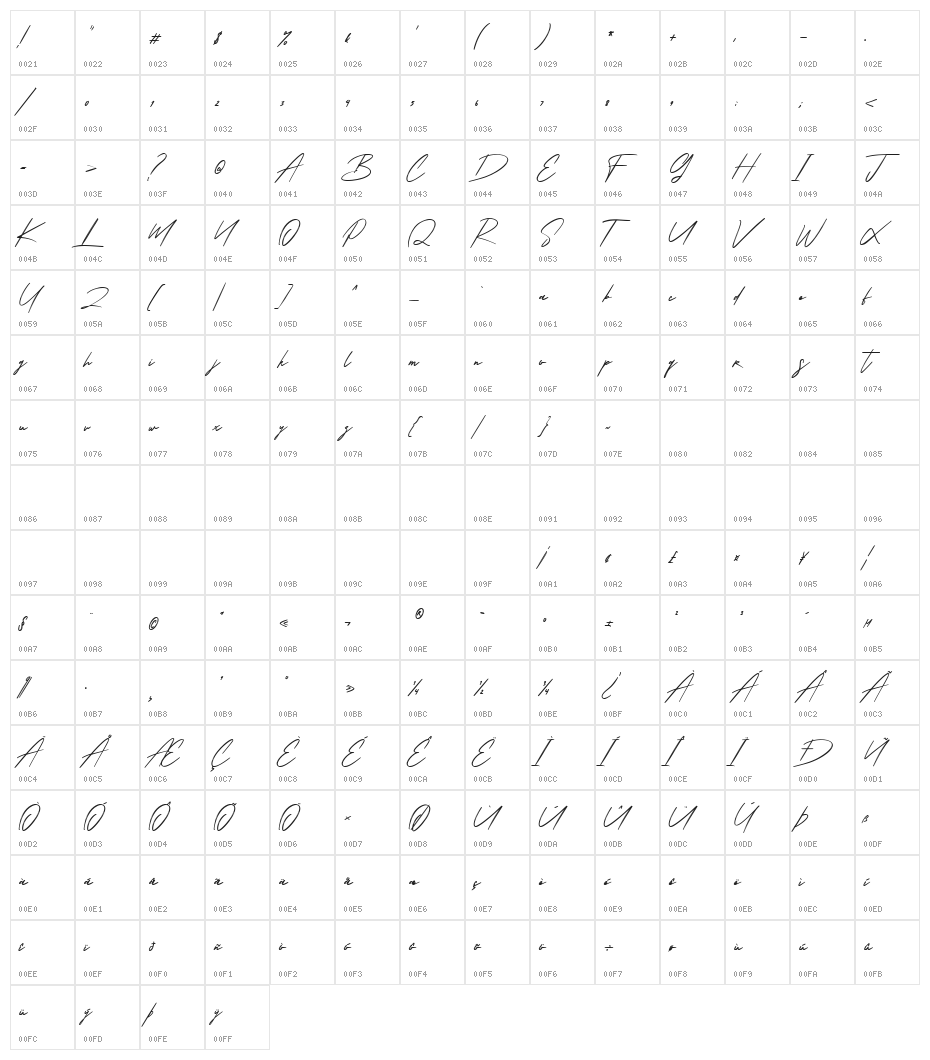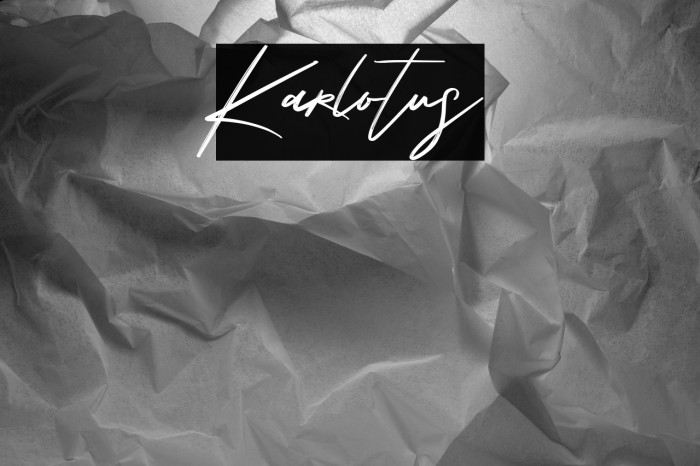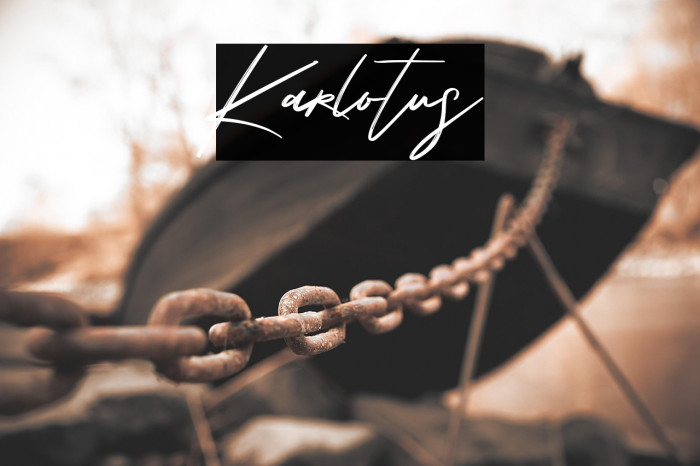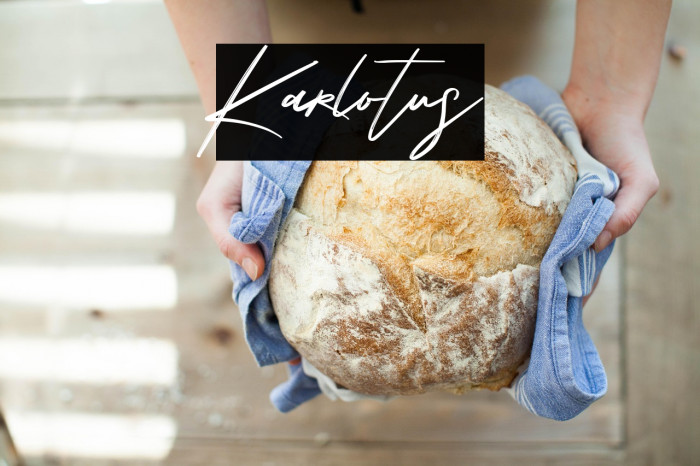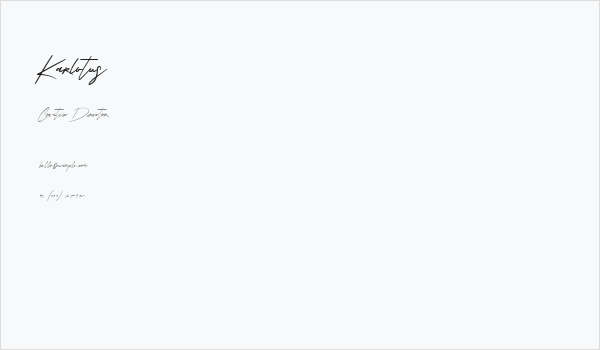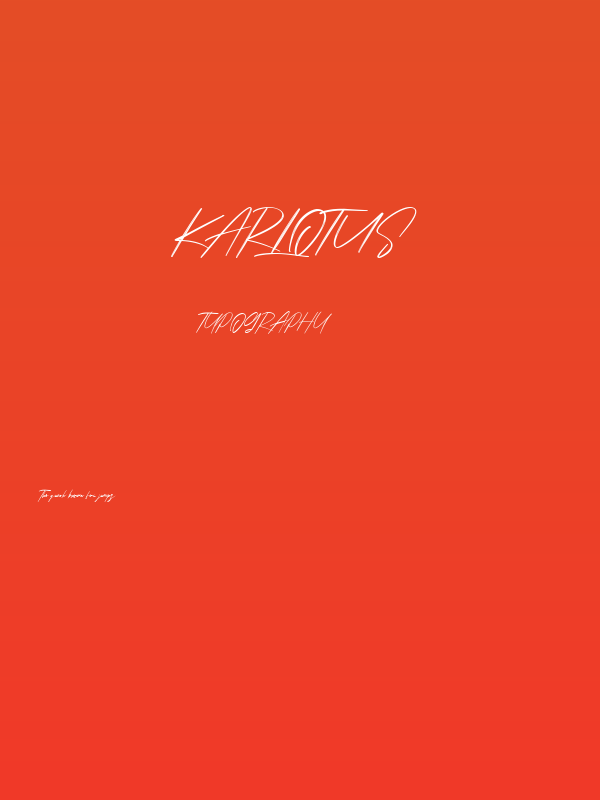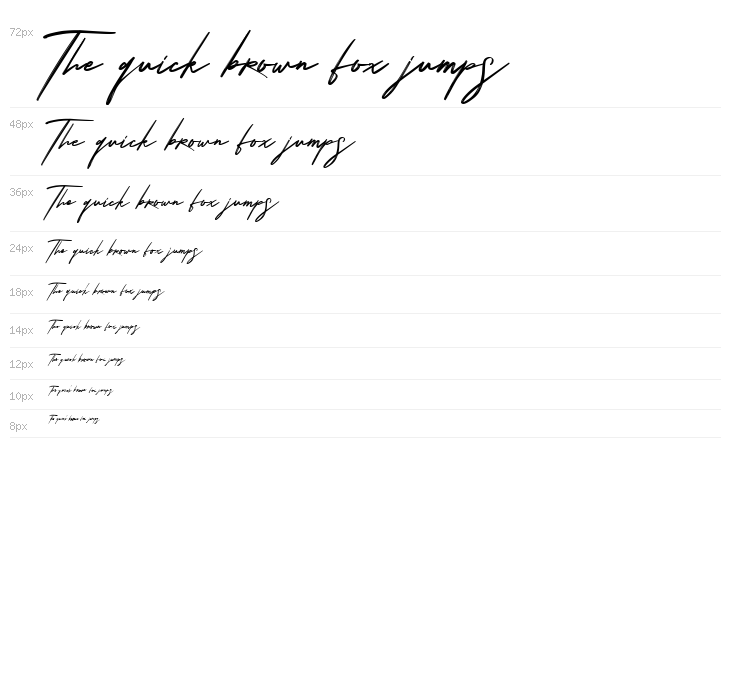
Karlotus Font
Karlotus Description
This font exudes a dynamic and elegant handwritten style, characterized by its fluid and cursive strokes. The letters are connected in a smooth, flowing manner, giving it a personal and artistic touch. The uppercase letters are bold and slightly slanted, while the lowercase letters maintain a consistent flow, enhancing readability. The numerals and special characters follow the same cursive style, ensuring uniformity across all characters. This font is perfect for projects that require a personal, yet sophisticated touch, such as invitations, branding, and artistic designs.
| Overall Style | Elegant, Artistic |
| Use Case | Logos, Invitations, Artistic designs |
| Proposed Projects | Ideal for invitations, branding, artistic designs, and personal projects. |